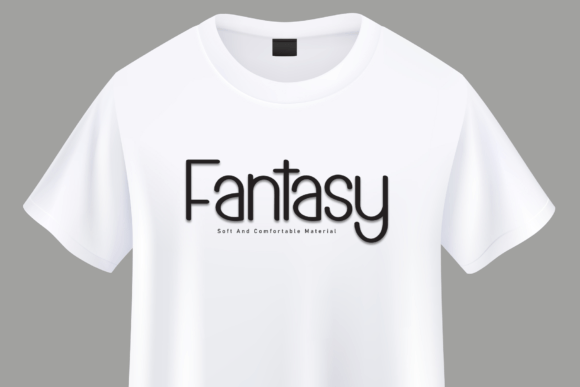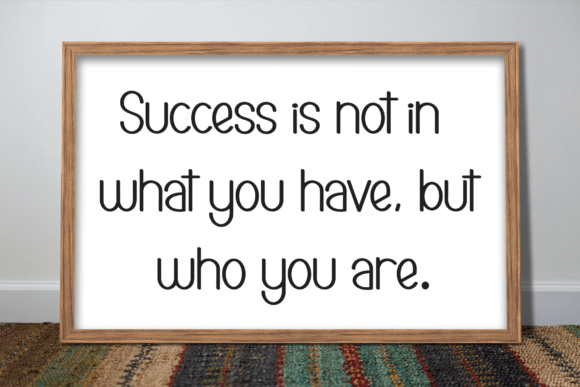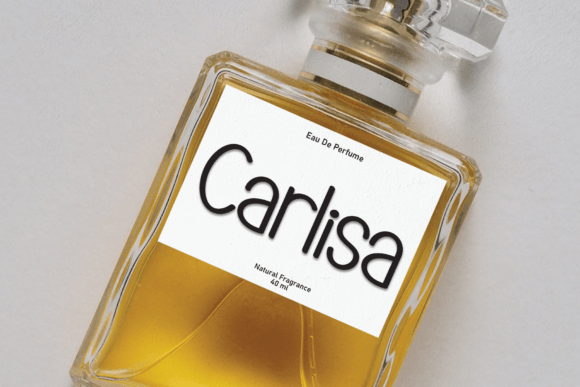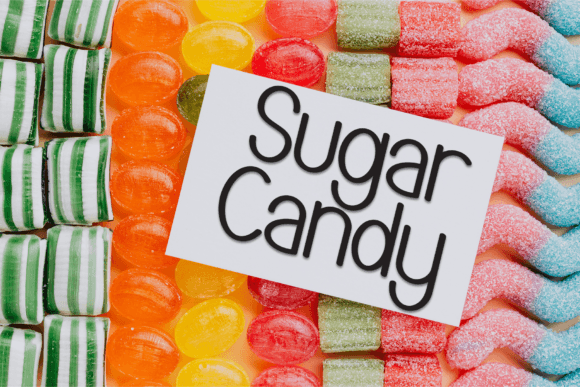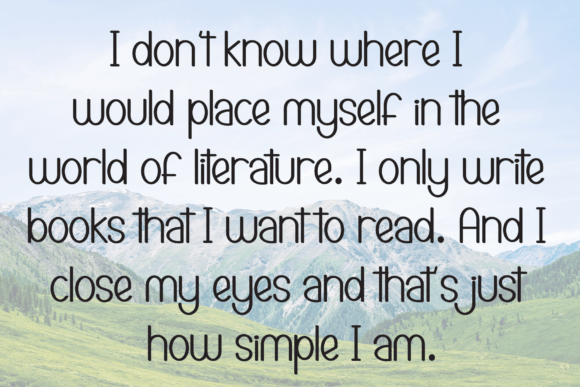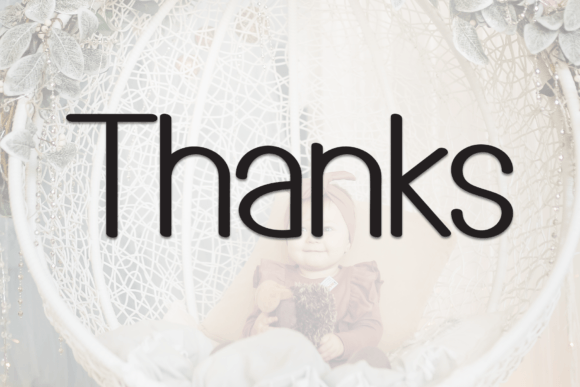
Baby Boho Font: Add a Touch of Whimsy to Your Designs
Are you looking for a font that can add a light-hearted and delightful vibe to your creative designs? Look no further than the Baby Boho Font, a charmingly whimsical handwriting-inspired display font that’s perfect for a variety of projects. In this article, we’ll take a closer look at this adorable font and explore its features, uses, and benefits.
What is Baby Boho Font?
Baby Boho Font is a hand-drawn display font that’s meticulously crafted to sprinkle a dash of fun and festivity into any design. Its whimsical and playful style makes it ideal for romantic wedding invitations, heartfelt greeting cards, and other creative projects that require a warm, inviting, and playful touch.
Features of Baby Boho Font
The Baby Boho Font boasts a range of features that make it a standout choice for designers and crafters. Some of its key features include:
- Whimsical and playful style: The font’s handwriting-inspired design gives it a light-hearted and delightful feel that’s perfect for a variety of creative projects.
- Hand-drawn with love: Each letter and character is carefully crafted to ensure a unique and personal touch.
- Perfect for display text: The font’s bold and playful style makes it ideal for headlines, titles, and other display text.
- Multilingual support: The font supports a range of languages, making it a great choice for designers and crafters working on international projects.
Uses of Baby Boho Font
The Baby Boho Font is incredibly versatile and can be used for a wide range of creative projects, including:
- Wedding invitations and stationery: The font’s romantic and whimsical style makes it perfect for wedding invitations, save-the-date cards, and other wedding stationery.
- Greeting cards and gift tags: The font’s playful and heartfelt style makes it ideal for greeting cards, gift tags, and other paper crafts.
- Social media graphics and branding: The font’s bold and playful style makes it perfect for social media graphics, branding, and other digital projects.
- Signs and posters: The font’s clear and easy-to-read style makes it great for signs, posters, and other display materials.
Benefits of Using Baby Boho Font
So why choose the Baby Boho Font for your next creative project? Here are just a few benefits of using this adorable font:
- Adds a touch of whimsy: The font’s playful and whimsical style adds a touch of fun and festivity to any design.
- Creates a personal touch: The font’s hand-drawn design gives it a unique and personal touch that’s perfect for handmade and bespoke projects.
- Easy to read and understand: The font’s clear and easy-to-read style makes it perfect for display text and other materials where readability is key.
- Versatile and flexible: The font’s bold and playful style makes it suitable for a wide range of creative projects and applications.
In conclusion, the Baby Boho Font is a charmingly whimsical handwriting-inspired display font that’s perfect for adding a light-hearted and delightful vibe to any creative design. With its playful and heartfelt style, this font is ideal for a wide range of projects, from romantic wedding invitations to heartfelt greeting cards and social media graphics. Whether you’re a designer, crafter, or DIY enthusiast, the Baby Boho Font is sure to become a favorite in your creative arsenal.